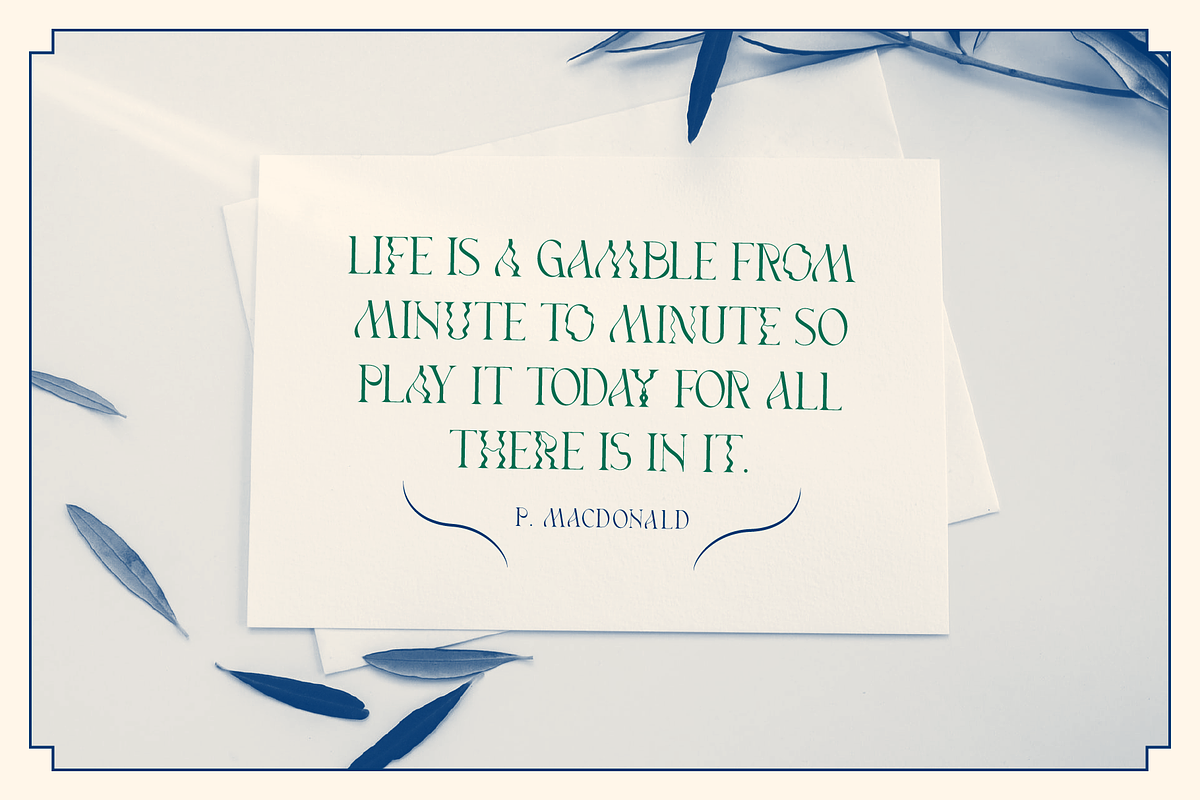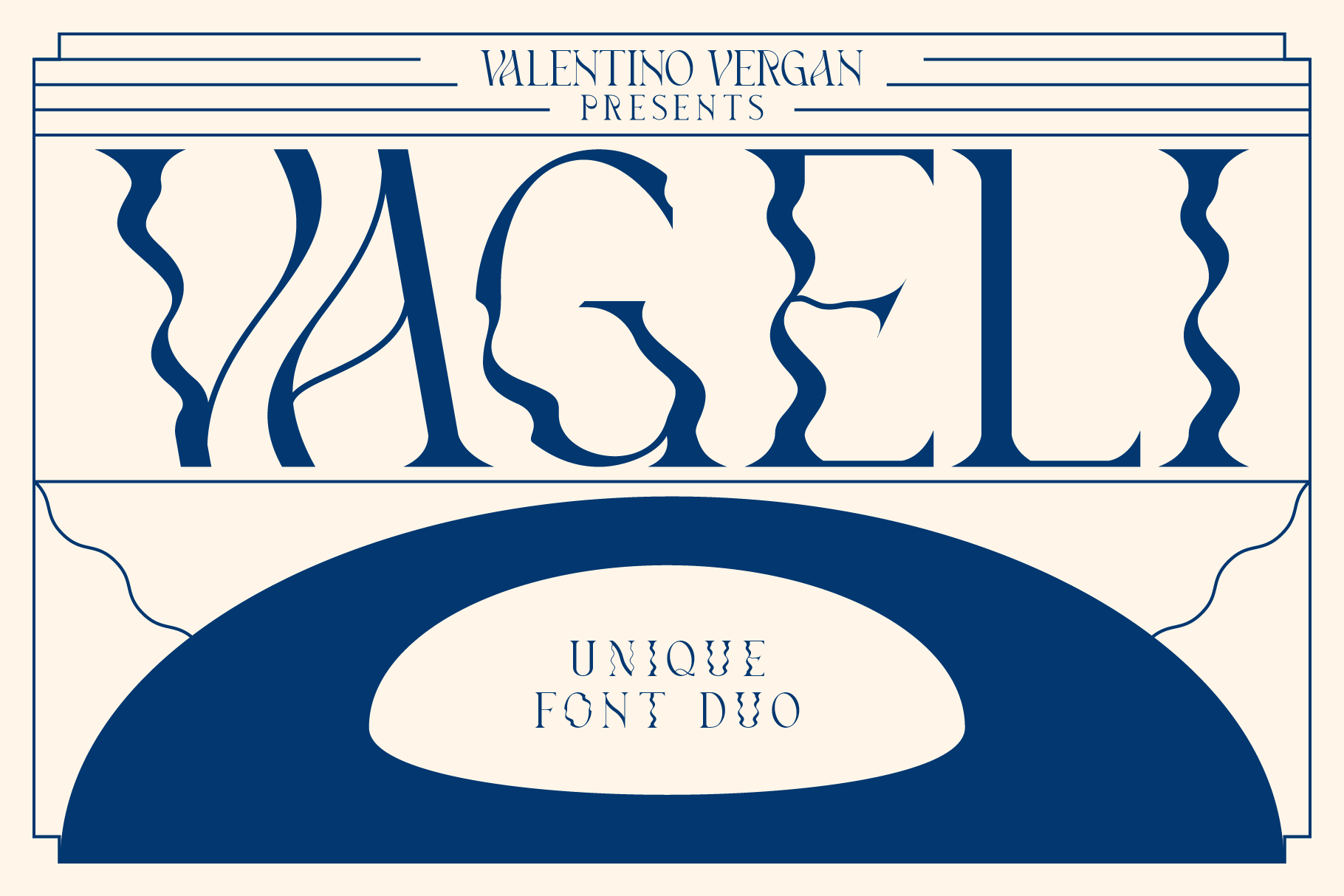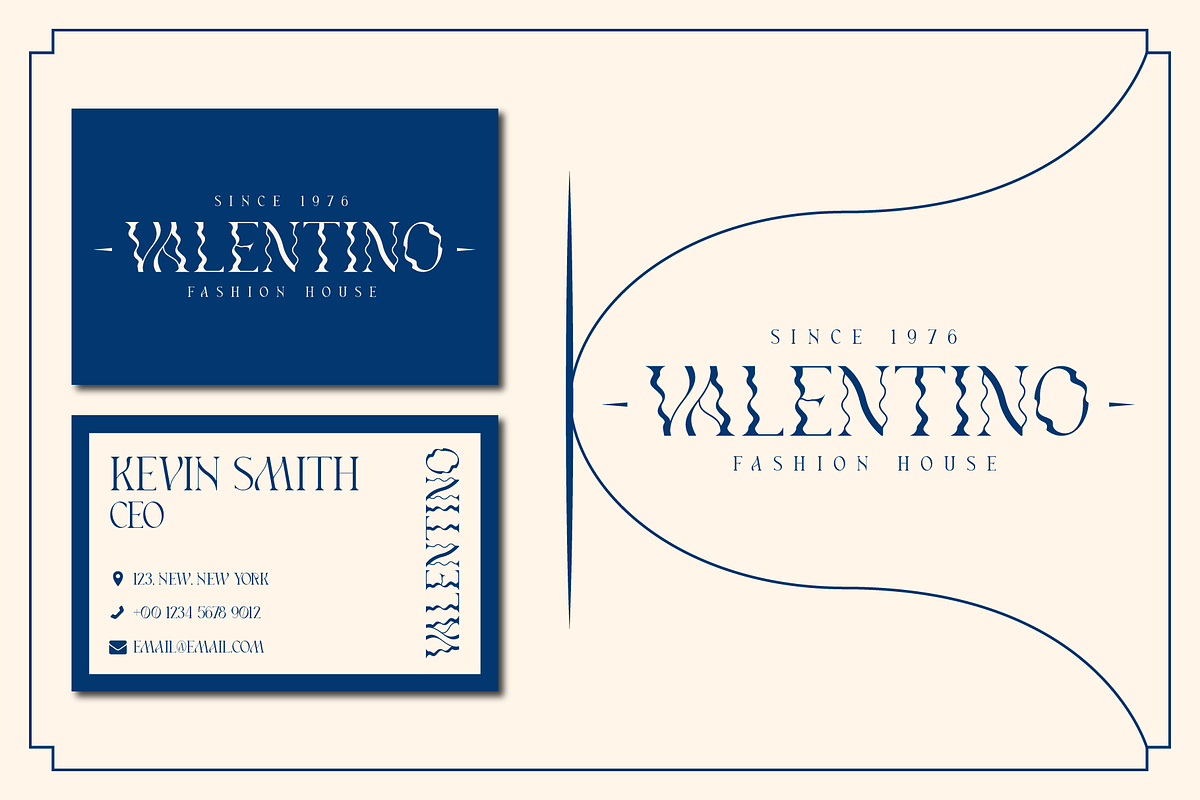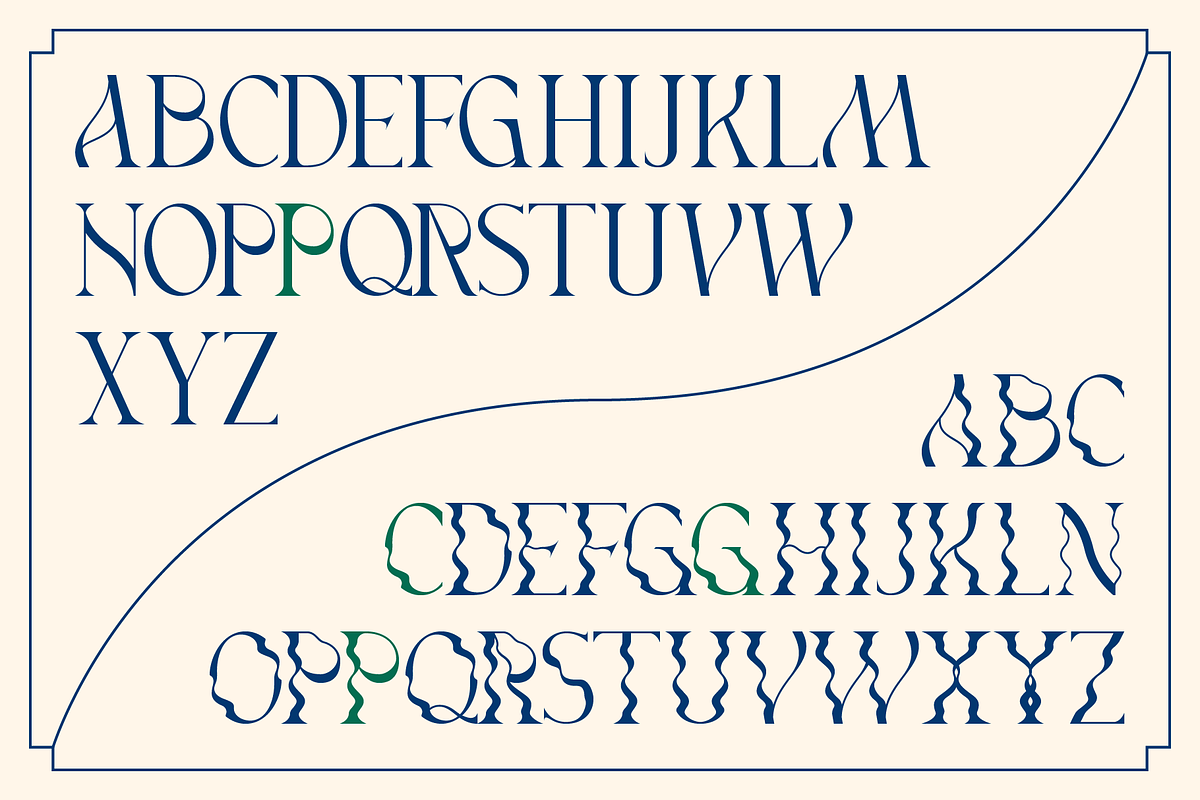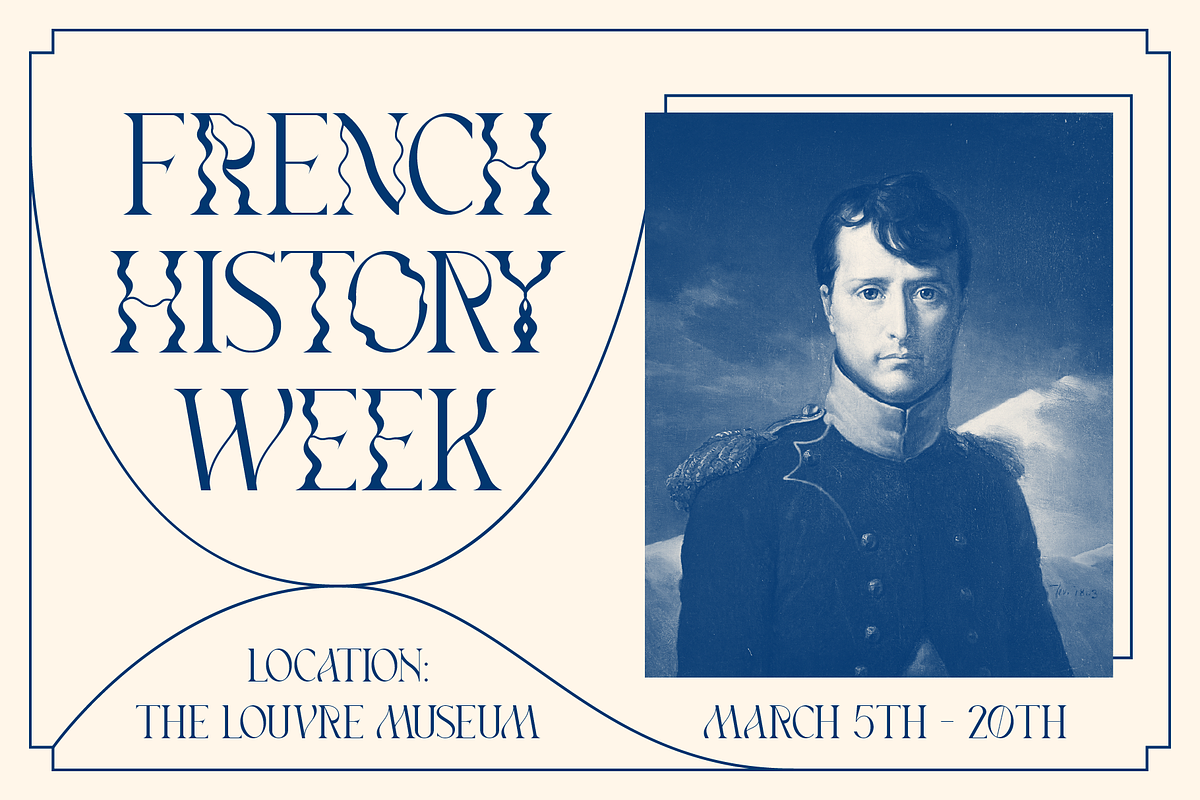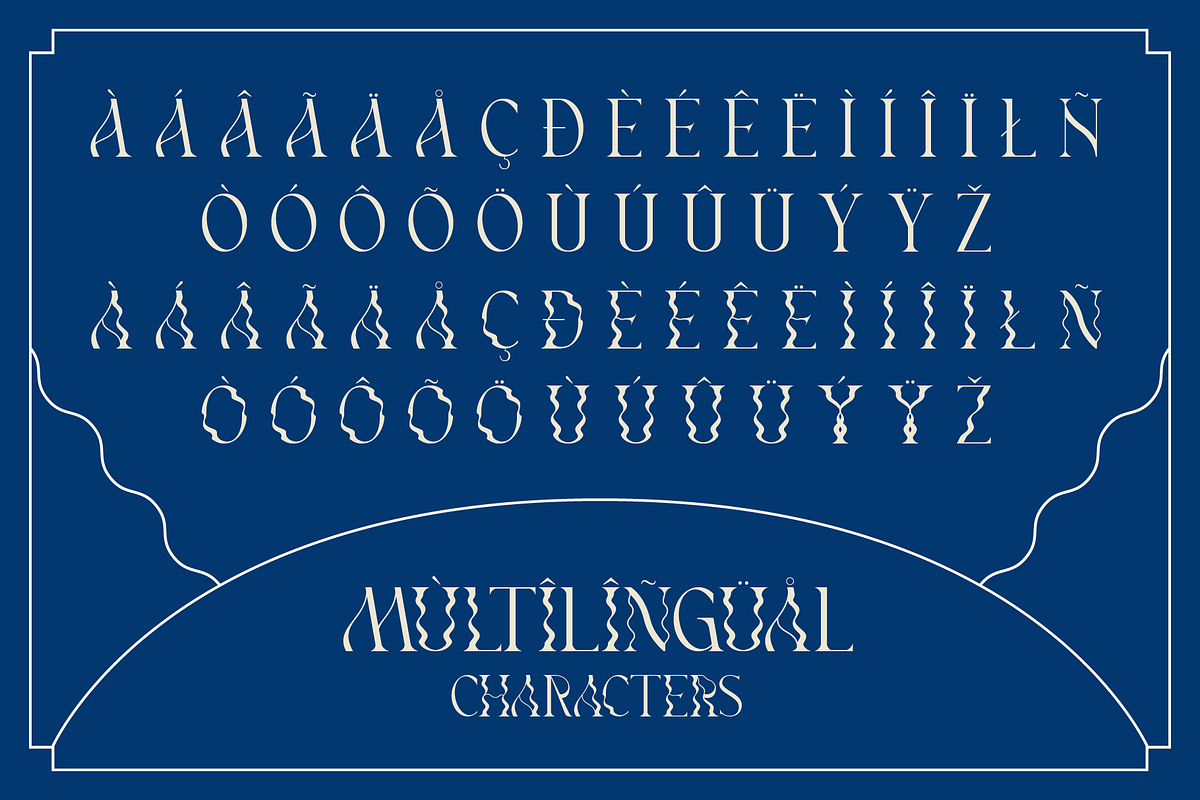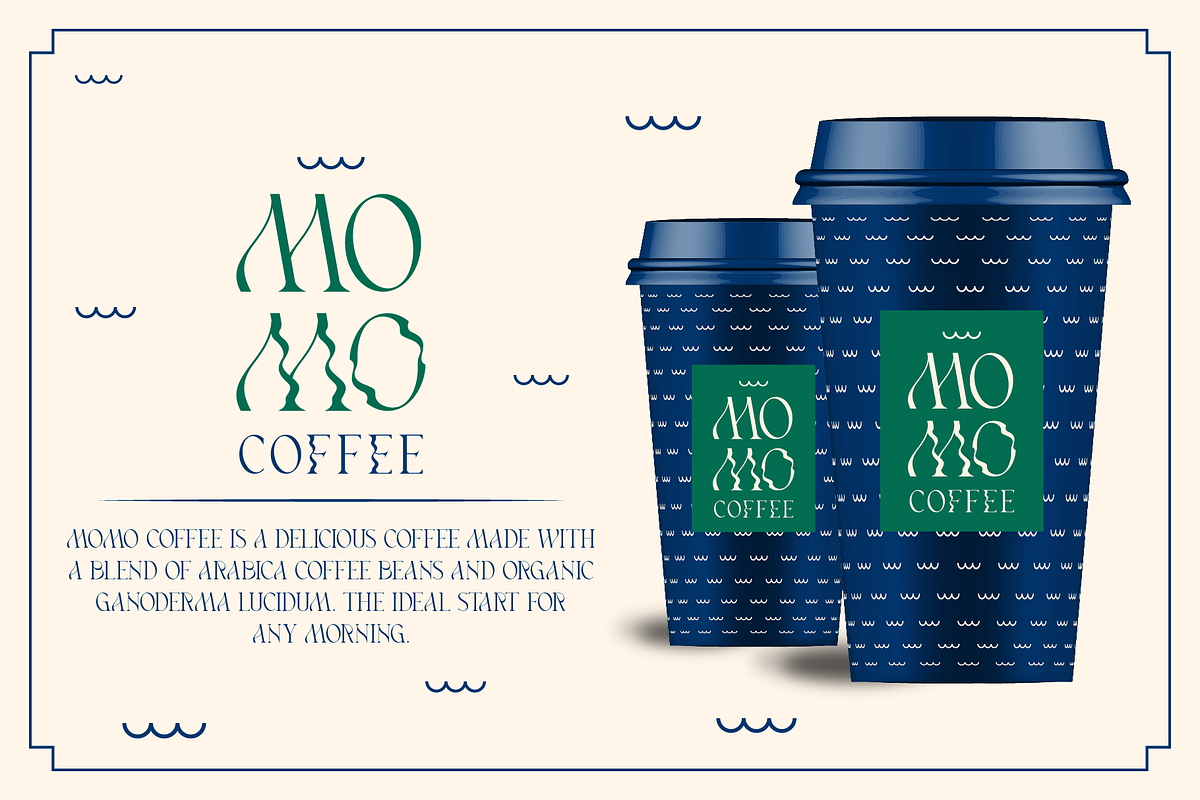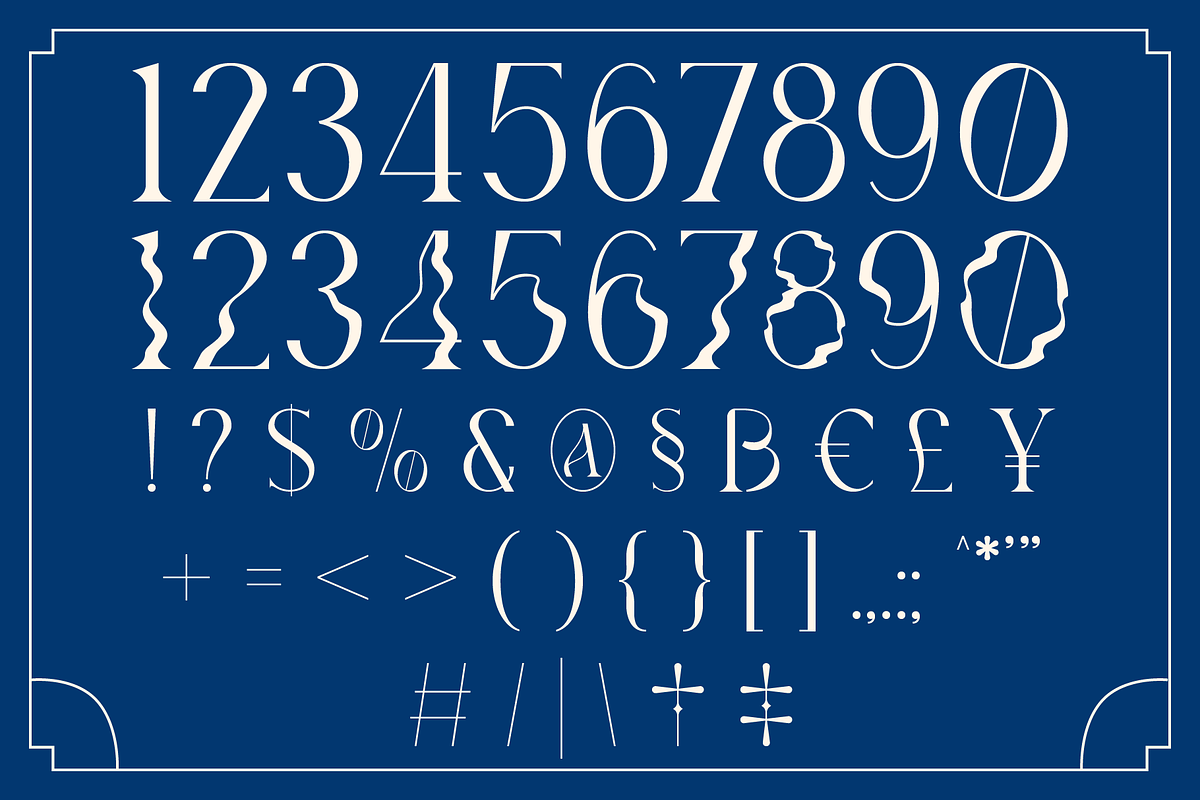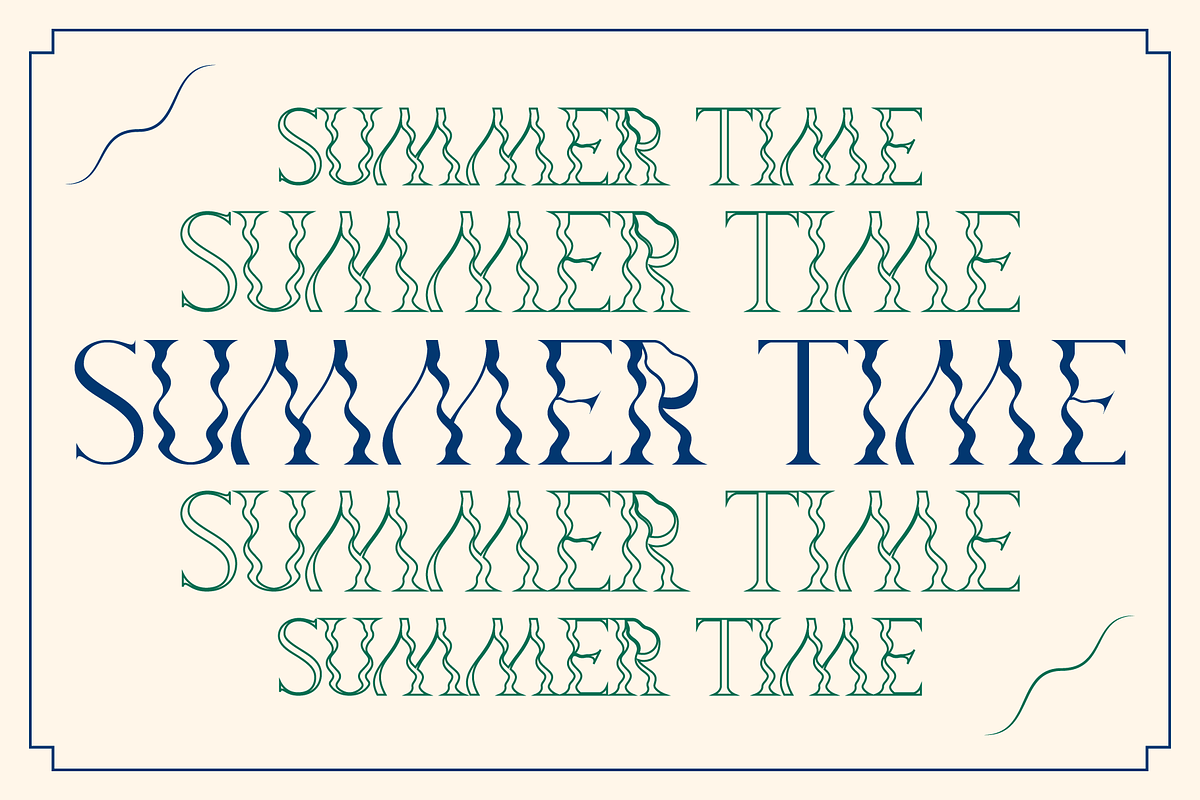
Vageli - Unique Font Duo
Vageli is a unique font duo that combines a beautiful nostalgic uppercase and a wavy vintage lowercase, this combination gives the typeface a distinctive and trendy appearance. The typeface is very creative, this makes it perfect for creating projects that will really standout.
Vageli comes with elegant ligatures, alternative characters and multi-language support.
Vageli is perfect for making creative designs such as posters, brand packages, logos, social media designs and much more.